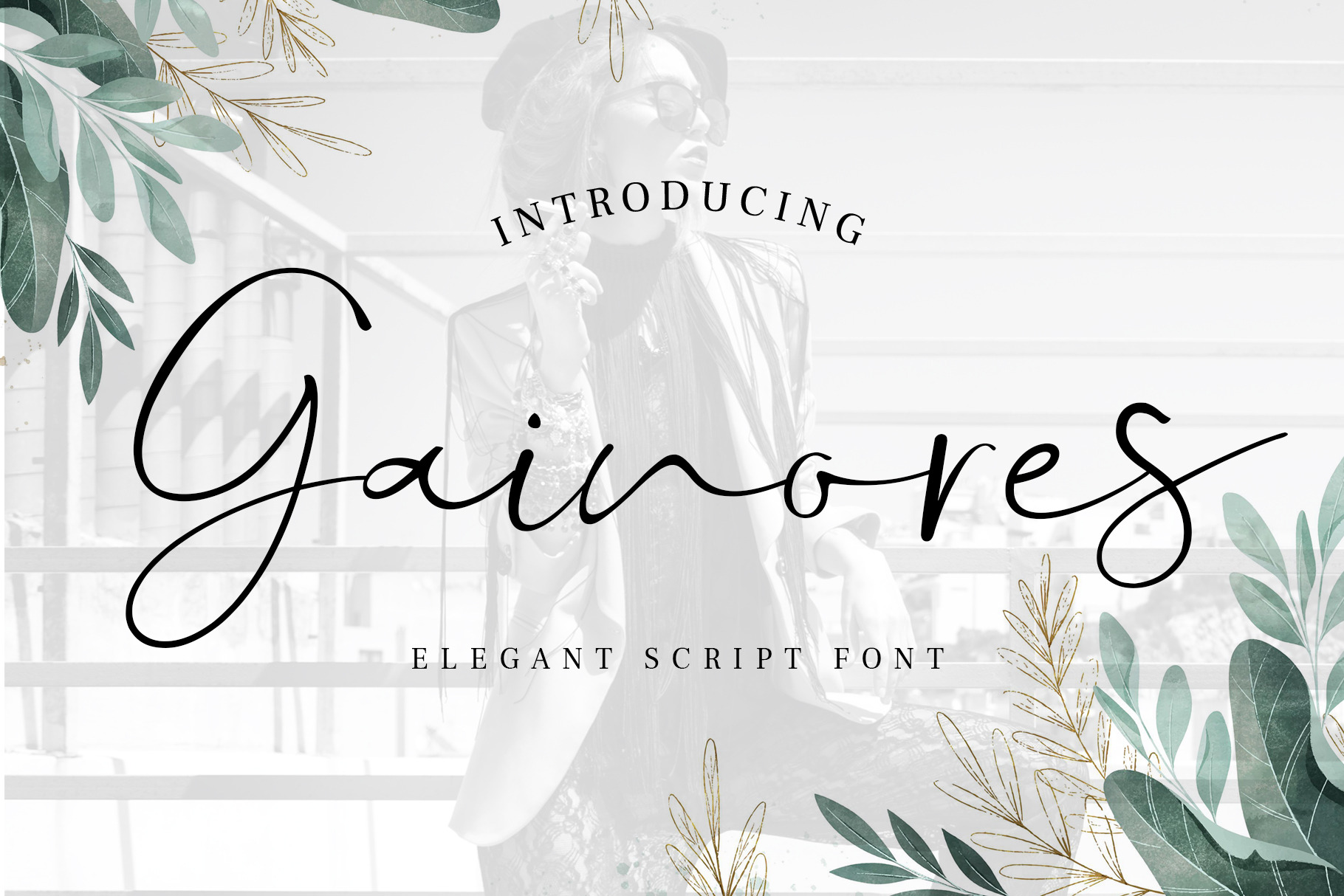
Gainores - Elegant Script Font
Gainores is a modern Elegant Calligraphy font with dynamic pressure. This font perfect for creating signature logos and watermarks for a photography studio or wedding invitation, best for initial or branding logo signature. Gainores coast includes a full set of beautiful hand-lettered uppercase and lowercase letters, numerals, and punctuation.